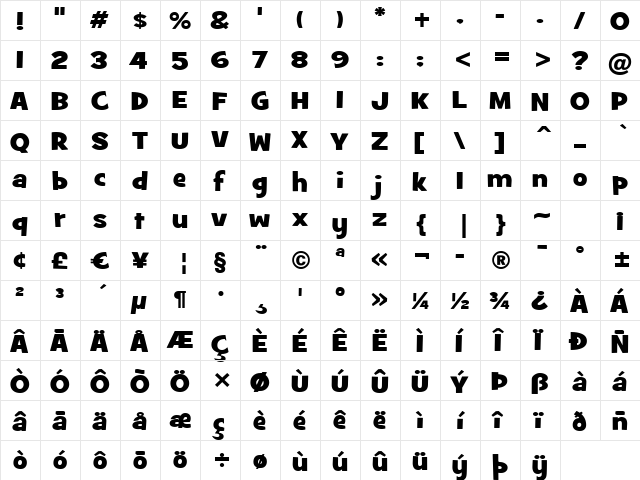
GrilledCheese BTN Wide Bold
Design Context for GrilledCheese BTN Wide Typeface
GrilledCheese BTN Wide takes a measured approach to typography — its balanced proportions and neutral character make it a reliable workhorse for both digital and print work. The heavy weight commands attention and anchors typographic hierarchies.